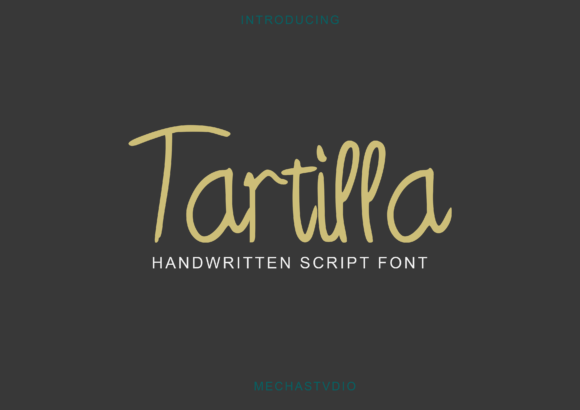
Behold the Tartilla Font - An Exquisite Script for Your Design Odyssey!
Embark on a journey of creativity and self-expression with Tartilla, the captivating script font that exudes elegance and charm. Ignite your imagination and watch your designs flourish with its enchanting curves and captivating personality.
Tartilla is not just a font; it's an experience. It's the perfect companion for your logo designs, branding projects, wedding invitations, social media posts, and any creative venture that demands a touch of uniqueness. Crafted with precision and passion, Tartilla's delicate strokes and organic flow bring an aura of sophistication to every letterform.
Imagine your logo adorned with Tartilla's graceful lines, creating an instant connection with your audience. Its timeless beauty and versatility make it an ideal choice for a wide range of design projects. From elegant wedding invitations to eye-catching social media posts, Tartilla adds an enchanting touch that leaves a lasting impression.
With Tartilla, you'll discover a world of endless possibilities. Unleash your creativity and let your designs speak volumes. Its natural spark will elevate your projects to new heights, captivating your audience and leaving them in awe.